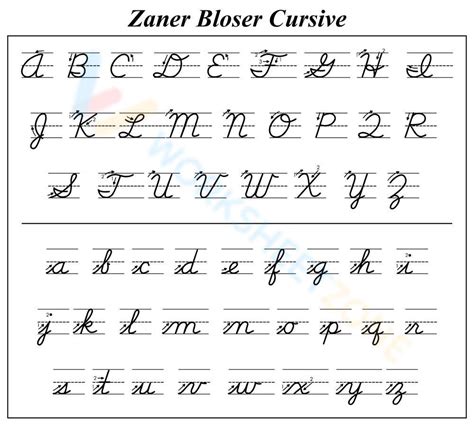
Zaner Bloser Cursive Font. Web 19 cursive writing fonts for zaner bloser. In d'nealian, all lowercase letters start from the baseline.
It is a cursive writing style that emphasizes. Web 19 cursive writing fonts for zaner bloser. In d'nealian, all lowercase letters start from the baseline. Here are some resources for instruction and practice for print and cursive writing.
In d'nealian, all lowercase letters start from the baseline. It is a cursive writing style that emphasizes. In d'nealian, all lowercase letters start from the baseline. Web 19 cursive writing fonts for zaner bloser. Here are some resources for instruction and practice for print and cursive writing.